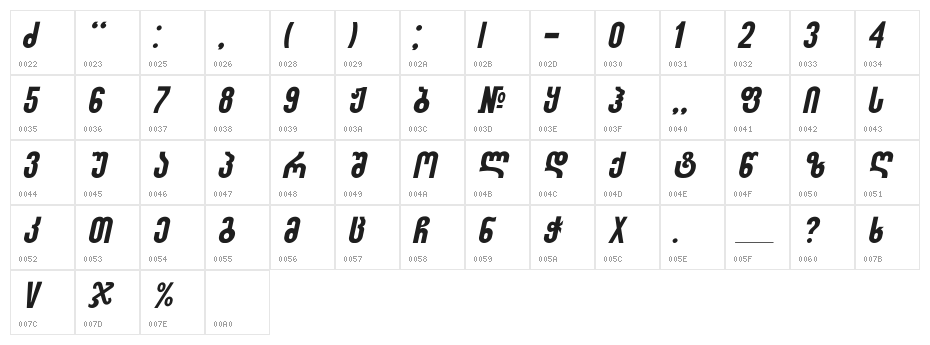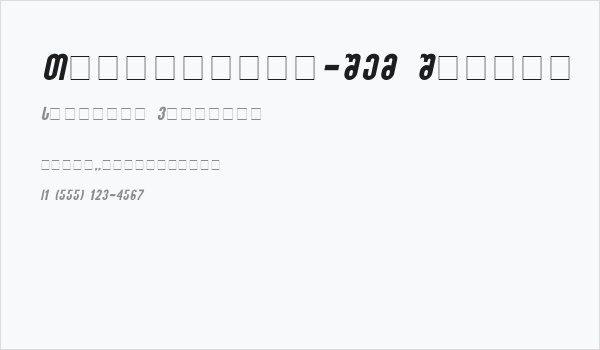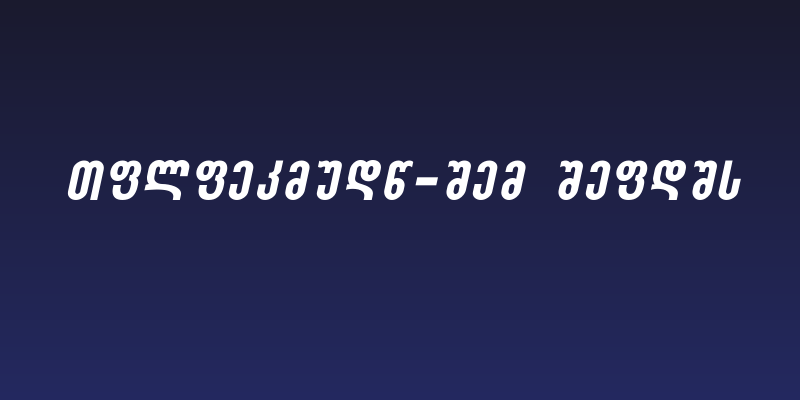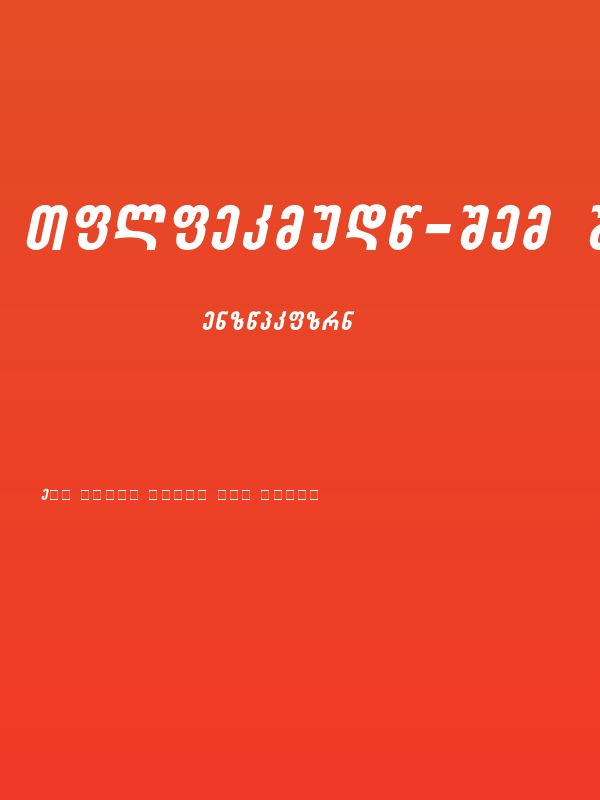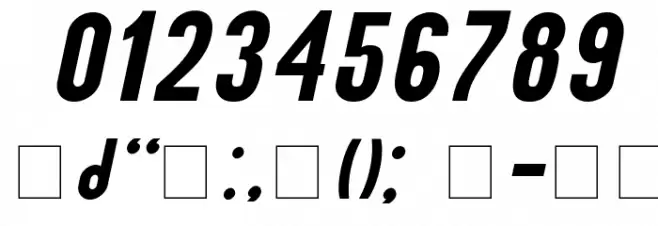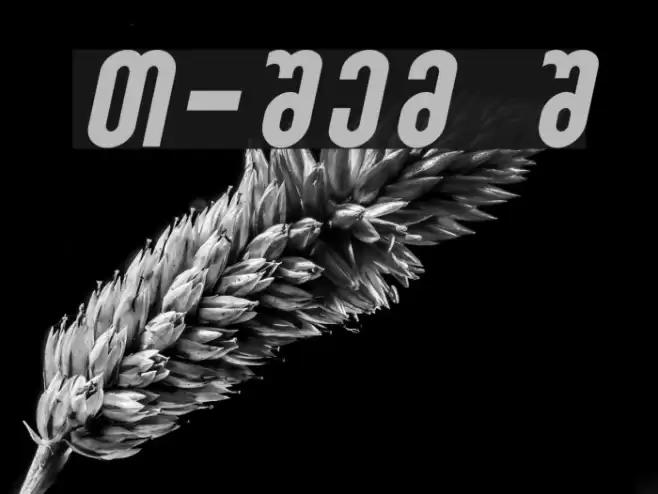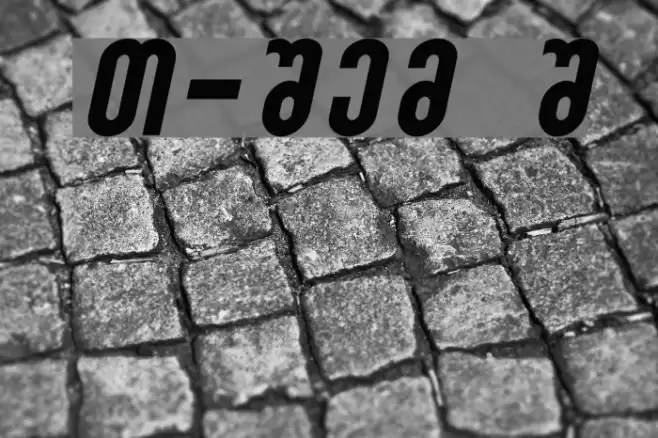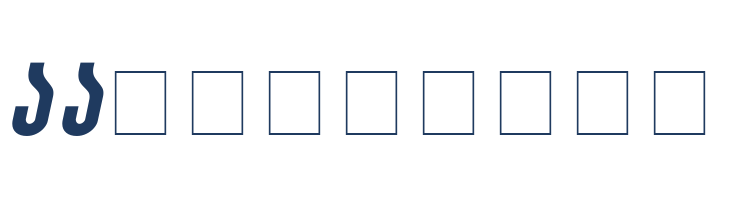
Sakatrvelo-ITV Italic Font
Sakatrvelo-ITV Italic Description
This font features a bold and italicized style with a strong emphasis on curves and angles, giving it a dynamic and energetic appearance. The characters are slightly slanted, enhancing the italic effect, and the strokes are thick, providing a robust and impactful look. The numbers are consistent with the letters in terms of style, maintaining the bold and italicized characteristics. The font is well-suited for creating attention-grabbing headlines or titles due to its boldness and unique style. The spacing between characters is moderate, ensuring readability while maintaining a compact appearance.
| Proposed Projects | Ideal for headlines, posters, branding, and advertising materials where a bold statement is needed. |